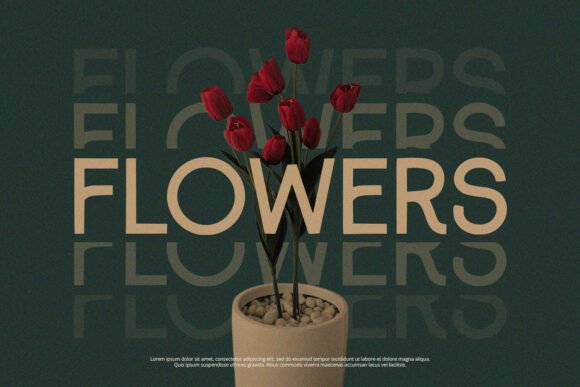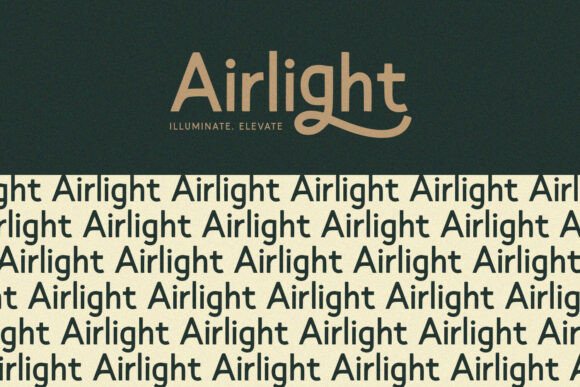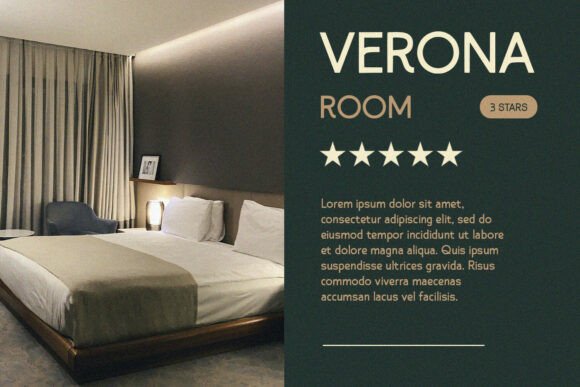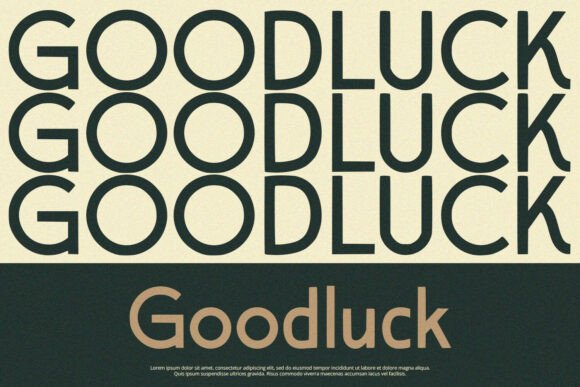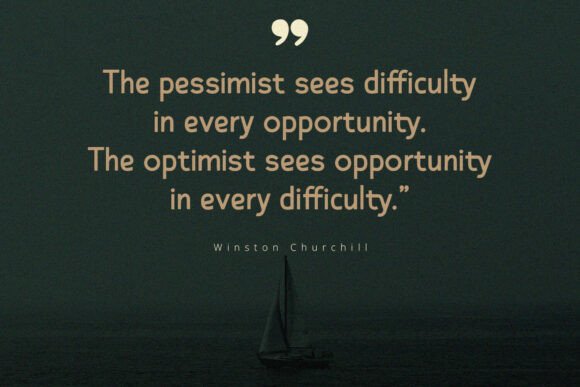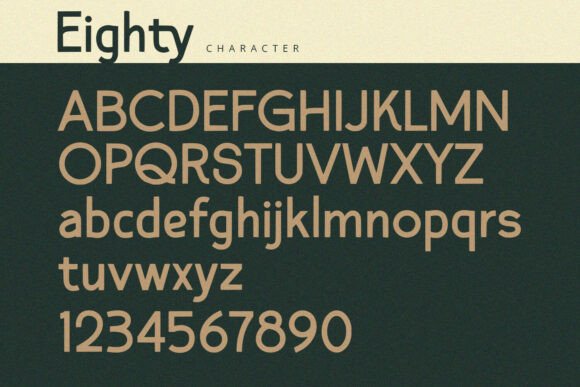
Eighty Font: Elevate Your Designs with Elegance and Modernity
In the world of typography, fonts play a crucial role in conveying the tone and aesthetic of a design. For designers and crafters seeking a font that exudes elegance and modernity, Eighty Font is an excellent choice. This sans serif font is perfectly suited for a wide range of design projects, from branding and logo design to lettering, packaging, and more.
The Characteristics of Eighty Font
Eighty Font boasts a sleek and contemporary design, characterized by clean lines, subtle curves, and a minimalist approach. Its sans serif style gives it a modern and sophisticated feel, making it an ideal choice for designers looking to create a lasting impression. The font’s elegant appearance is perfect for projects that require a touch of refinement and poise.
Eighty Font’s versatility makes it an excellent addition to any designer’s toolkit. Here are some of the design projects where Eighty Font truly shines:
- Branding: Establish a strong brand identity with Eighty Font’s elegant and modern aesthetic.
- Logo Design: Create a lasting impression with a custom logo designed using Eighty Font.
- Lettering: Add a touch of sophistication to your lettering projects with Eighty Font’s clean and elegant lines.
- Logotype: Design a custom logotype that perfectly represents your brand’s personality.
- Clothing: Elevate your fashion designs with Eighty Font’s modern and stylish appearance.
- Posters: Create eye-catching posters that grab attention with Eighty Font’s bold and elegant design.
- Magazines: Add a touch of sophistication to your magazine designs with Eighty Font’s clean and modern aesthetic.
- Packaging: Make your products stand out with Eighty Font’s elegant and refined design.
- Shopping Bags: Create custom shopping bags that reflect your brand’s personality with Eighty Font.
- T-shirts: Design stylish and modern t-shirts with Eighty Font’s bold and elegant appearance.
- Book Covers: Create eye-catching book covers that perfectly capture the essence of your story.
- Photography: Add a touch of elegance to your photography projects with Eighty Font’s sophisticated design.
- Special Events: Make your special events unforgettable with Eighty Font’s modern and stylish appearance.
Why Choose Eighty Font?
Eighty Font offers a unique combination of elegance and modernity, making it an excellent choice for designers and crafters. Here are some reasons why you should consider using Eighty Font in your next design project:
- Unique Design: Eighty Font’s sleek and contemporary design sets it apart from other fonts.
- Versatility: Eighty Font is suitable for a wide range of design projects, from branding and logo design to packaging and more.
- Elegant Appearance: Eighty Font’s elegant and refined design adds a touch of sophistication to any project.
- Modern Feel: Eighty Font’s modern aesthetic makes it perfect for designers looking to create a lasting impression.
Tips for Using Eighty Font Effectively
To get the most out of Eighty Font, here are some tips to keep in mind:
- Pair with Other Fonts: Experiment with pairing Eighty Font with other fonts to create a unique and visually appealing design.
- Adjust Font Size: Adjust the font size to create visual hierarchy and emphasize important information.
- Use Bold and Italic Styles: Use Eighty Font’s bold and italic styles to add emphasis and create visual interest.
Eighty Font is an excellent choice for designers and crafters seeking a font that exudes elegance and modernity. Its versatility, unique design, and elegant appearance make it perfect for a wide range of design projects. By following the tips outlined above, you can effectively use Eighty Font to elevate your designs and create a lasting impression.